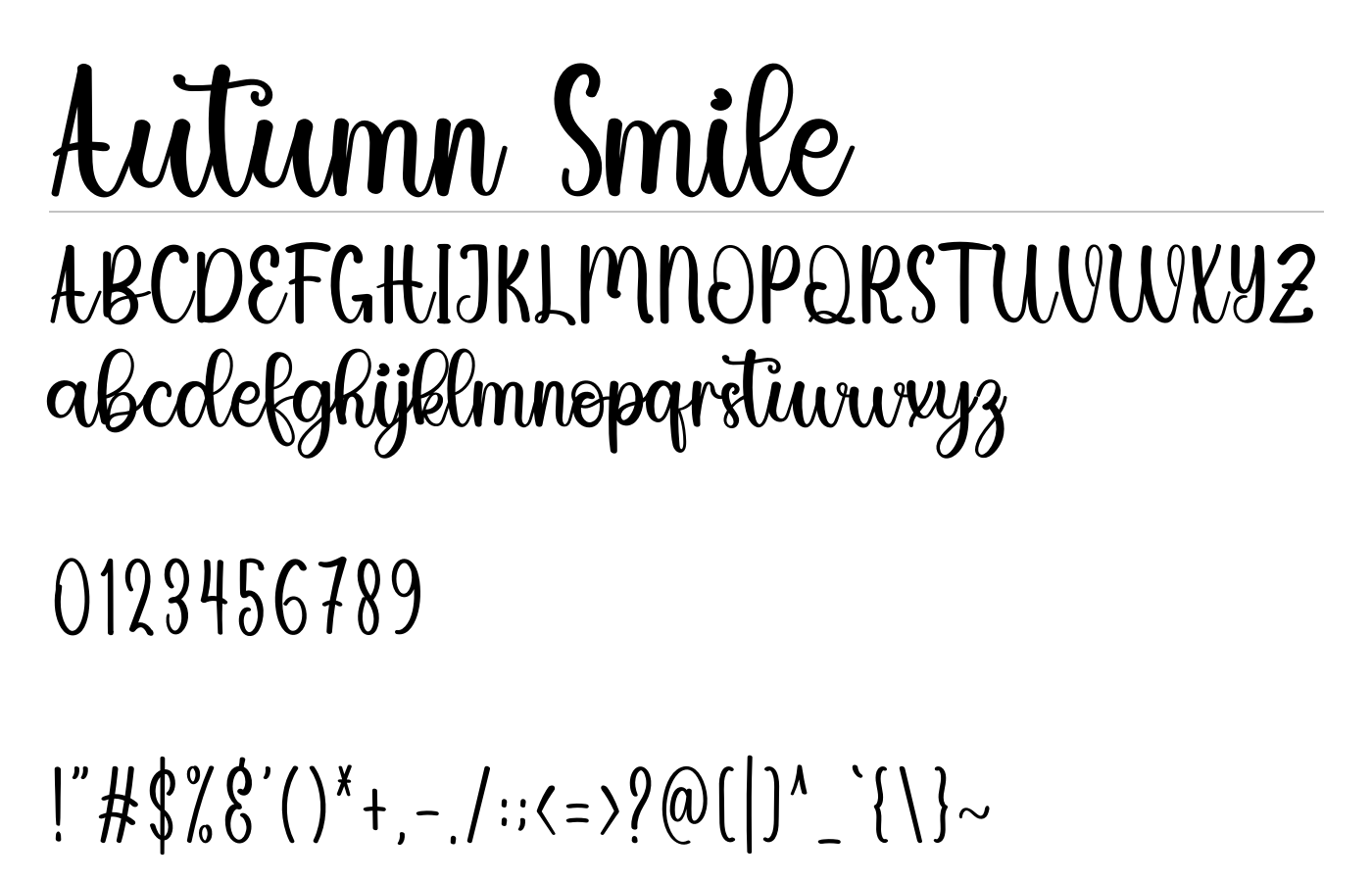
Autumn Smile is a playful and elegant handwritten script font with tall, slender letterforms and smooth, rounded strokes. Its light weight and whimsical curves make it perfect for friendly, informal designs such as invitations, branding, and creative headlines. This font brings a warm, approachable feel that works beautifully for fashion, lifestyle, and handmade product projects.
Autumn Smile Font